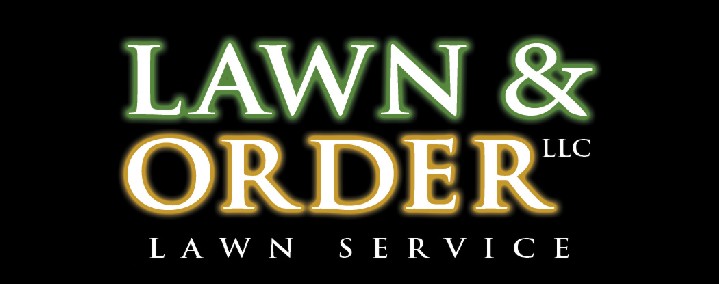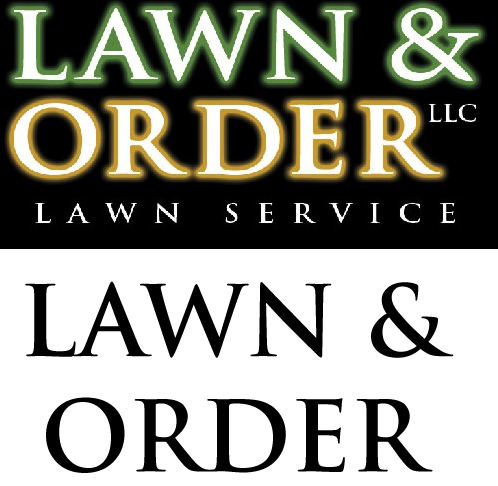
Looks like Trajan, except for the ampersand.
(edit) The ampersand looks like a slightly modified Minion
It's the omnipresent Trajan Bold although they've switched fonts for the ampersand.